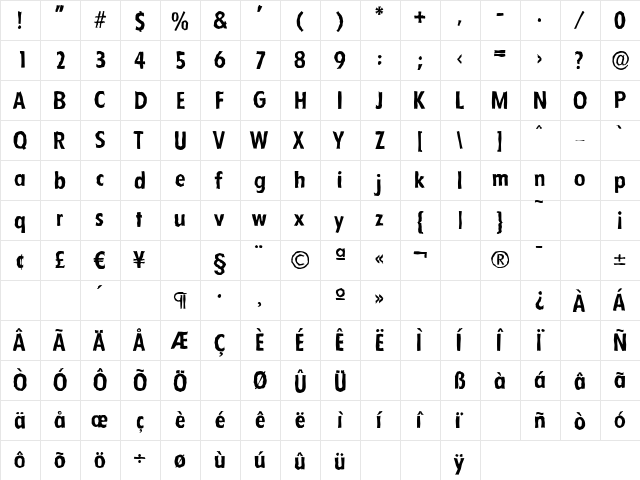
FloridaAntique Bold Font Preview
FloridaAntique Bold
Design Context for FloridaAntique Typeface
FloridaAntique has the warm character of retro typography — evoking diners, record sleeves, and the golden age of print advertising. Its bold stroke weight gives it real presence on the page.
Font Pairing: Combine FloridaAntique with a simple slab or neutral sans — period-accurate companions reinforce the vintage feel without competing for attention.
Pro Tip: Lean into FloridaAntique's period character by pairing it with aged paper textures, muted colour palettes, and vintage illustration styles.